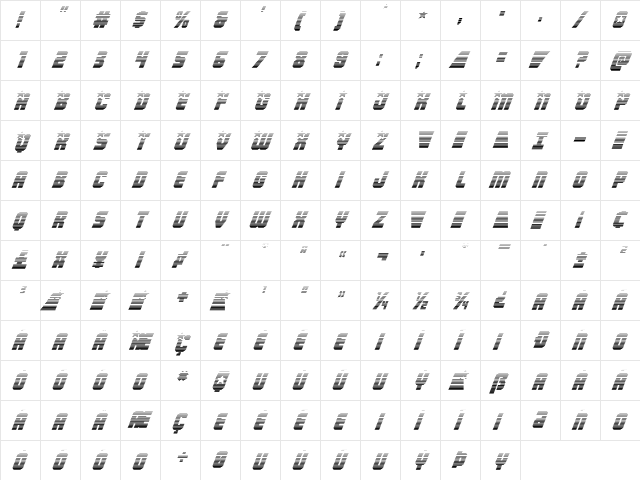
Army Rangers Gradient Italic Italic
Design Context for Army Rangers Gradient Italic Typeface
Army Rangers Gradient Italic draws on military and industrial lettering traditions, with forms that communicate strength and precision. The slanted form adds forward momentum and visual energy.
A strong choice for security brands, outdoor gear, and high-stakes visual communication.
Pro Tip: Try Army Rangers Gradient Italic in all-caps for the most authentic military signage feel. It pairs well with stark, minimal layouts and muted colour palettes.